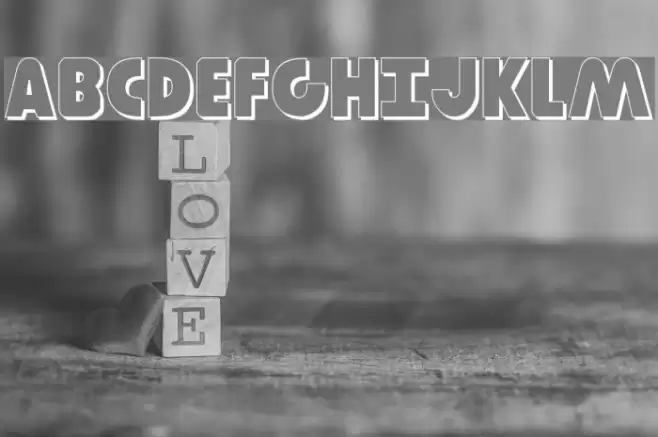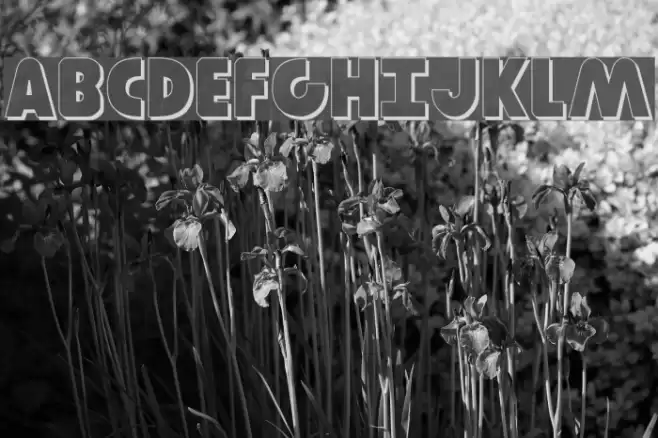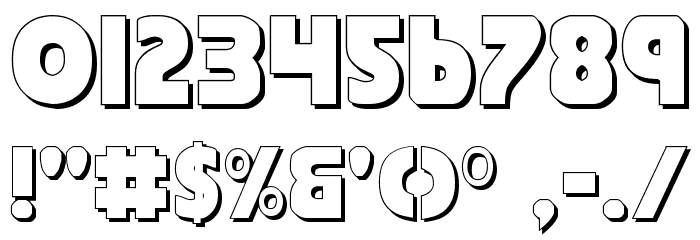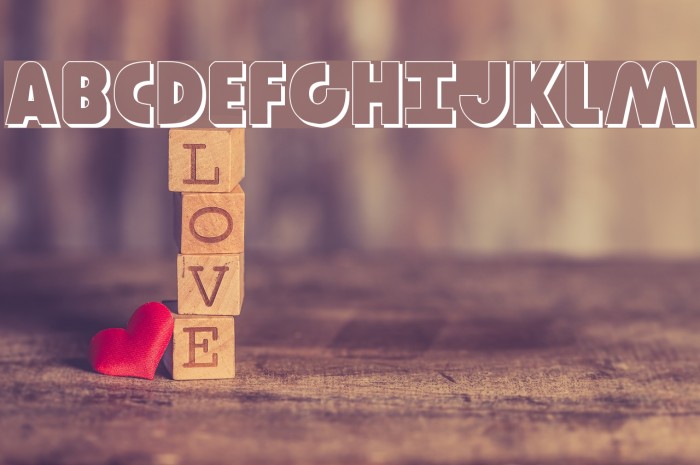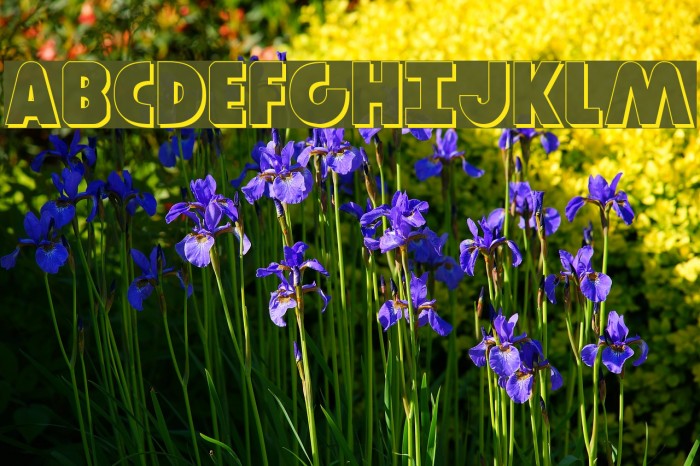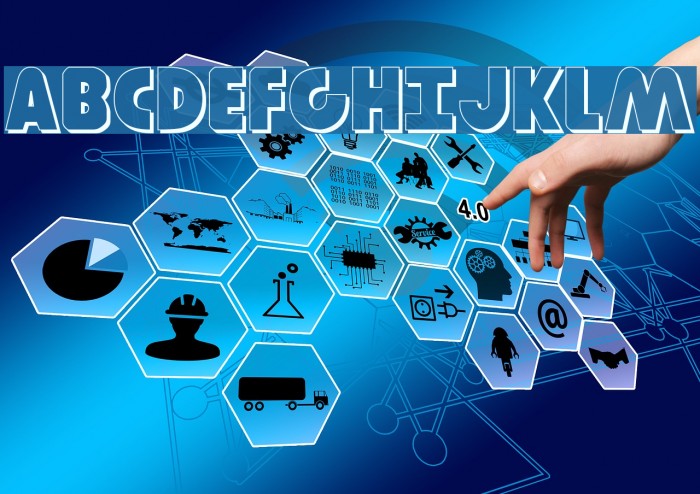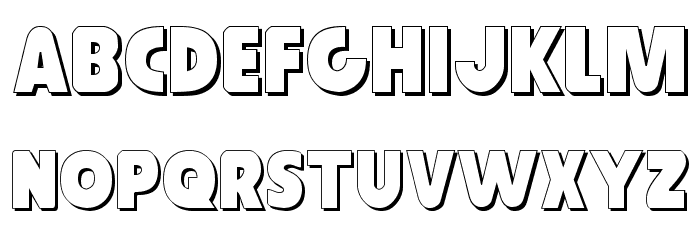
Governor Shadow Font
Governor Shadow Description
This font features a bold, impactful design with a distinct shadow effect that gives each character a three-dimensional appearance. The uppercase and lowercase letters maintain a consistent width, contributing to a uniform look. The numbers and special characters are crafted with the same boldness, ensuring they stand out prominently. The shadow effect adds depth, making the characters appear as if they are lifted off the page. This style is particularly effective for creating eye-catching headlines or titles. The font's geometric shapes and clean lines give it a modern and professional feel, suitable for a variety of design projects.
A bold, shadowed font with a modern, three-dimensional appearance from Capitals fonts.
- Proposed Projects: Ideal for headlines, posters, logos, and any design requiring a strong visual impact.